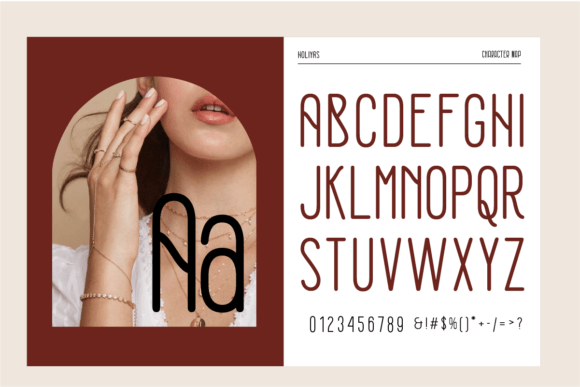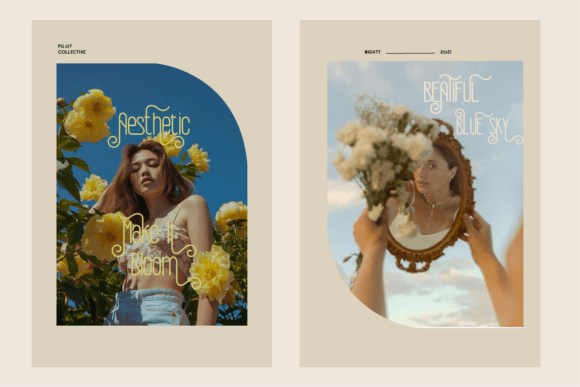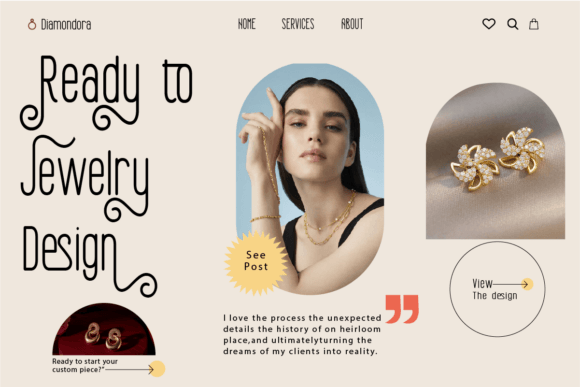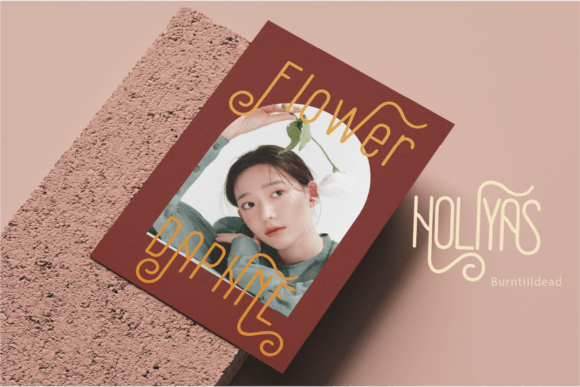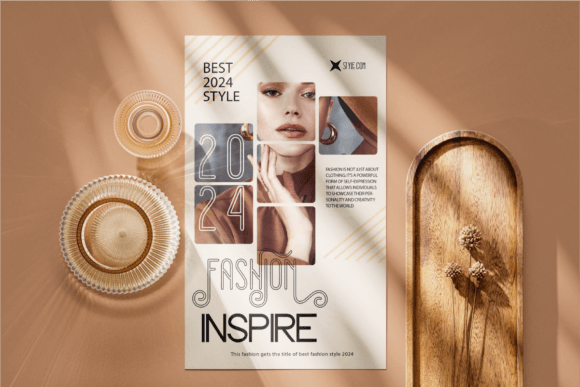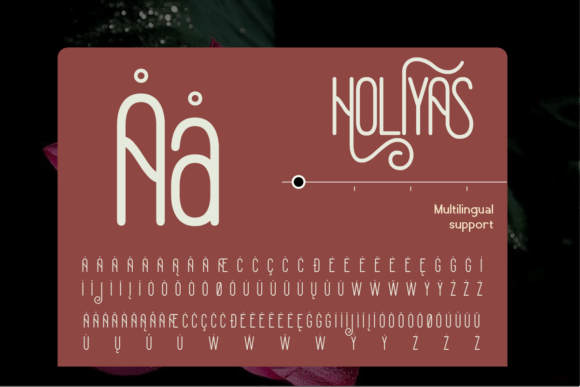
Introduction to Holiyas Font
Imagine you’re brainstorming ideas for a new branding project, and suddenly, a burst of creativity hits you. You envision a unique logo that exudes modern charm and sophistication. The key to unlocking this vision lies in the perfect font – one that adds an artistic touch to your design without overpowering it. This is where the Holiyas Font comes in – a display font that’s sure to elevate your creative project to the next level.
With its refreshing modern touch and beautiful ligatures, the Holiyas Font is the perfect design resource for designers looking to add a high-quality, soft yet striking impression to their work. Whether you’re designing product packaging, creating invitations, or crafting a logo, this versatile font is sure to bring your ideas to life. And the best part? You can download it for free, making it an essential addition to your design toolkit.
As a valuable asset for designers, the Holiyas Font offers a transparent background, allowing you to easily overlay it on any image or texture. Its unique characters and stylish ligatures make it an ideal choice for creative projects that demand attention to detail. So why wait? Get ready to unlock the full potential of your design with the Holiyas Font.
Key Features of Holiyas Font
- High-quality typography with a transparent background, making it perfect for creative projects.
- Features a unique, elegant design that can be used for a wide range of creative projects, from logos to typography-based art.
- Size: The font family includes multiple weights and styles, ranging from Light to Bold, providing flexibility for various design needs.
Honest Review: Holiyas Font
I recently came across the Holiyas Font and was excited to dive in and see what it has to offer. As a designer, I’m always on the lookout for high quality design resources that can elevate my creative projects.
One of the first things that caught my attention was the transparent background, which makes it easy to integrate into any design without worrying about distractions. The font itself is quite versatile and can be used for a variety of projects, from logos to typography-based designs.
- High quality design that’s perfect for creative projects
- Only a limited number of styles and weights are available
- Not suitable for use in high-resolution images
Overall, I’m impressed with the Holiyas Font, and I think it’s a great addition to any designer’s toolkit. With its high quality design and transparent background, it’s perfect for creative projects. While there are a few limitations, I think it’s well worth considering for your next design project. ✨
The Holiyas Font is a high-quality design resource that offers a unique and creative touch to any project. With a transparent background, it’s perfect for designers who want to add a subtle yet striking element to their work.
Tips for Getting the Most Out of Holiyas Font
To get the most out of the Holiyas Font, experiment with different font sizes, colors, and styles to find the combination that works best for your project. You can also use the font in conjunction with other design elements to create a unique and eye-catching visual effect.
Common Use Cases for Holiyas Font
The Holiyas Font is suitable for a variety of creative projects, including graphic design, digital art, and typography. It’s also a great resource for designers who want to add a touch of elegance and sophistication to their work.